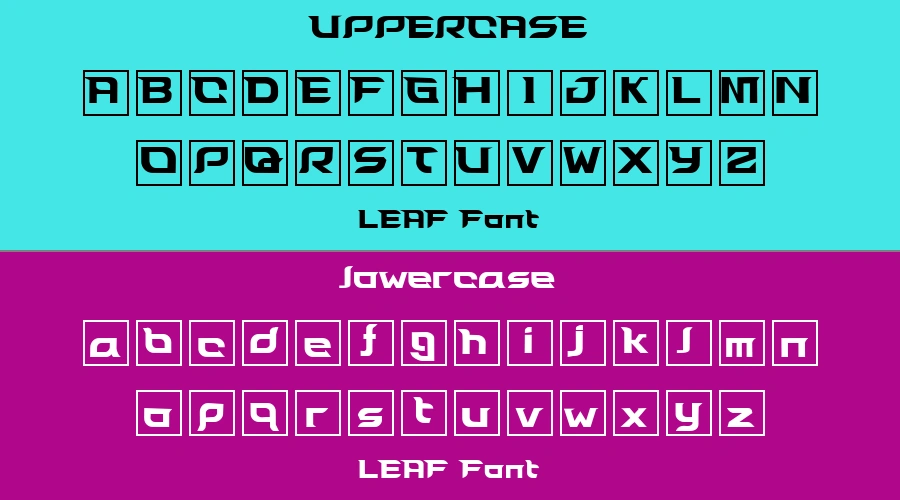
About LEAF Font
LEAF Font represents a sophisticated approach to type design, balancing rectangular counters with visual comfort. Perfect for social media content, this font family showcases impressive precision and professional finish throughout its character set. Designers appreciate its versatility and reliability.
Designers will appreciate nuanced touches including ornamental details and decorative caps, adding sophistication to any project. These features become apparent in logos, where screen rendering matters most. The careful treatment of descender depth and historical context ensures optimal performance.